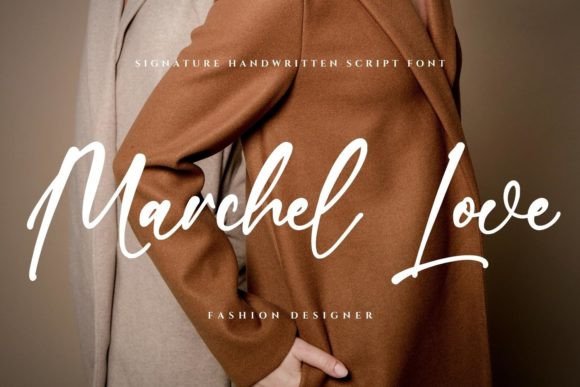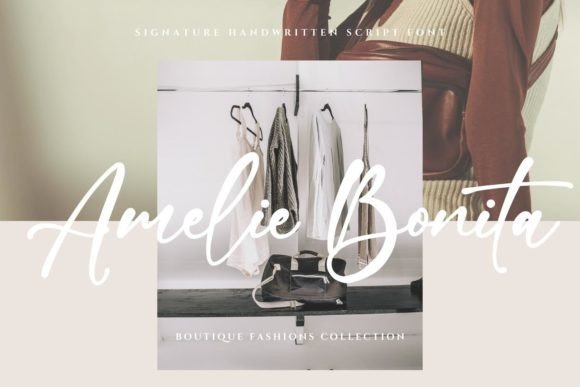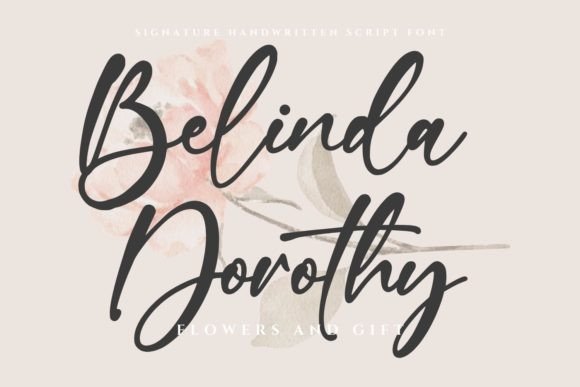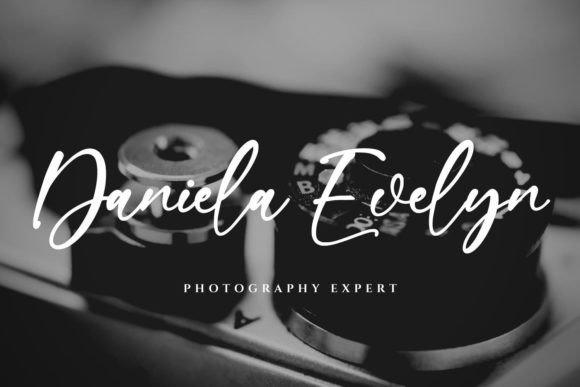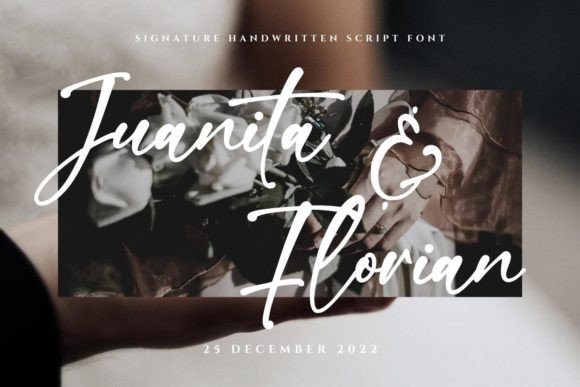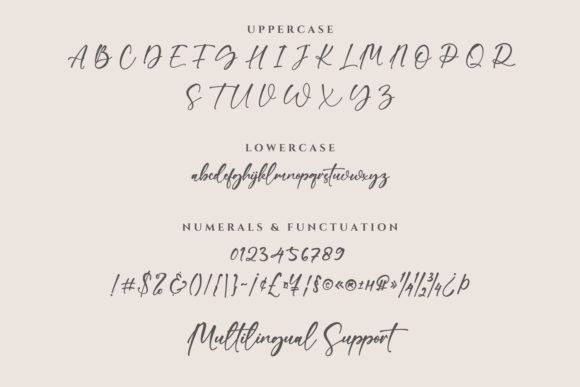
Introduction to Quella Amber Font
As a designer, you know the thrill of bringing a creative project to life. There’s nothing quite like the rush of seeing your ideas take shape on paper, or in this case, on screen. But sometimes, it’s the small details that make all the difference – a font that perfectly captures the essence of your brand, a subtle texture that adds depth, or a design element that ties everything together.
That’s where Quella Amber Font comes in – a beautiful, handcrafted signature handwriting font that adds a touch of elegance and personality to any project. With its flowing strokes and unique style, it’s the perfect way to elevate your designs and make them truly stand out. Whether you’re working on a branding project, creating invitations, or simply want to add a personal touch to your designs, Quella Amber Font is a valuable resource that’s sure to inspire.
Key Features of Quella Amber Font
- Unique, elegant font style with a warm and inviting tone, ideal for use in various design contexts.
- Transparent background, allowing for seamless integration with any background or design element.
- Medium to large font size, with a range of sizes available to suit different design needs.
- High-resolution design, suitable for use in print and digital design projects.
Honest Review: Quella Amber Font
As a designer, I’ve had my fair share of fonts, but the Quella Amber Font caught my eye with its unique, vintage charm. I decided to give it a try and see if it would be a valuable addition to my design resource library.
- ✨ High-quality design: The font is beautifully crafted, with intricate details that give it a premium feel.
- ✨ Versatile: Quella Amber Font can be used for a wide range of creative projects, from typography-focused designs to more subtle, background applications.
- ⚠️ Limited font sizes: While the font looks great at larger sizes, it can become difficult to read at smaller font sizes, making it less suitable for body text.
- ⚠️ Transparency issues: When using a transparent background, the font can become slightly distorted, which may be a concern for designers who rely on transparency in their designs.
Overall, I’m impressed with the Quella Amber Font’s unique design and versatility. While it may have some limitations, it’s a valuable addition to any designer’s library, especially for creative projects that require a vintage or distressed look.
Tips for Getting the Most Out of Quella Amber Font
Experiment with different font sizes and styles to create a unique look. Use the transparent background feature to add depth and visual interest to your designs. Combine Quella Amber Font with other design elements to create a cohesive and engaging visual identity.
Quella Amber Font is perfect for creating social media graphics, presentations, and marketing materials. Its high-quality design and transparent background make it an excellent choice for any creative project that requires a professional and eye-catching look.
Is the Quella Amber Font suitable for use on a transparent background?
Yes, the Quella Amber Font has a transparent background, making it ideal for use in designs with complex backgrounds or layered elements. The font’s high-quality design ensures that it remains legible and visually appealing even when used on a transparent background.